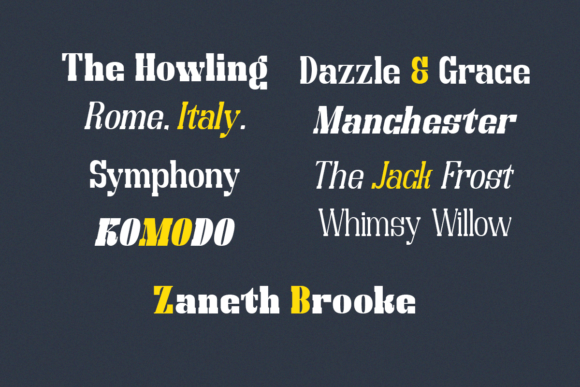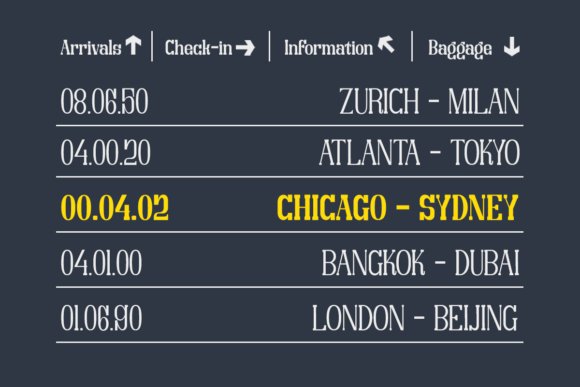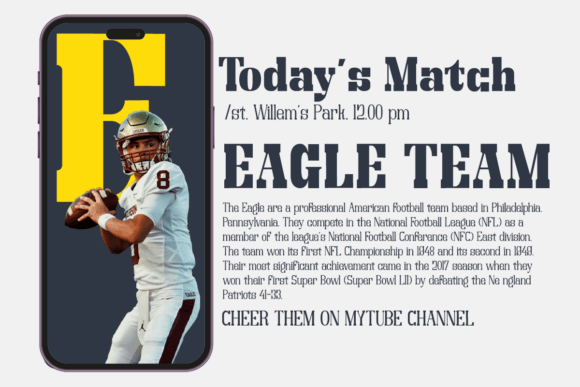
Introduction to Clabs Font Font
Fonts play a crucial role in design, and the Clabs Font font is a typeface that brings both character and versatility to any project. Whether you’re working on a branding project, a website, or a print design, the Clabs Font font offers a unique style that can elevate your work.
Clabs is a versatile slab serif font family designed for branding, featuring 9 weights from Thin to Black, each accompanied by matching italics.
Its bold, chunky characters combined with thin strokes and flowy italics create a unique look suitable for making strong statement headlines The low contrast strokes, short ascenders and descenders, and low caps lend it a vintage, rough aesthetic, making Clabs ideal for various projects like logo design, clothing branding, magazine headers, newspaper, or any amazing work while supporting multiple languages.
Key Features of Clabs Font Font
Why Choose Clabs Font Font?
The Clabs Font font is more than just a typeface – it’s a design tool that helps you communicate your message with style and clarity. Its unique character set and versatile design make it suitable for a wide range of applications, from elegant invitations to bold headlines.
With its carefully crafted letterforms and balanced proportions, the Clabs Font font ensures readability and visual appeal across all mediums.
What makes Clabs Font font special?
The Clabs Font font stands out with its unique design, exceptional readability, and versatility across various design applications.